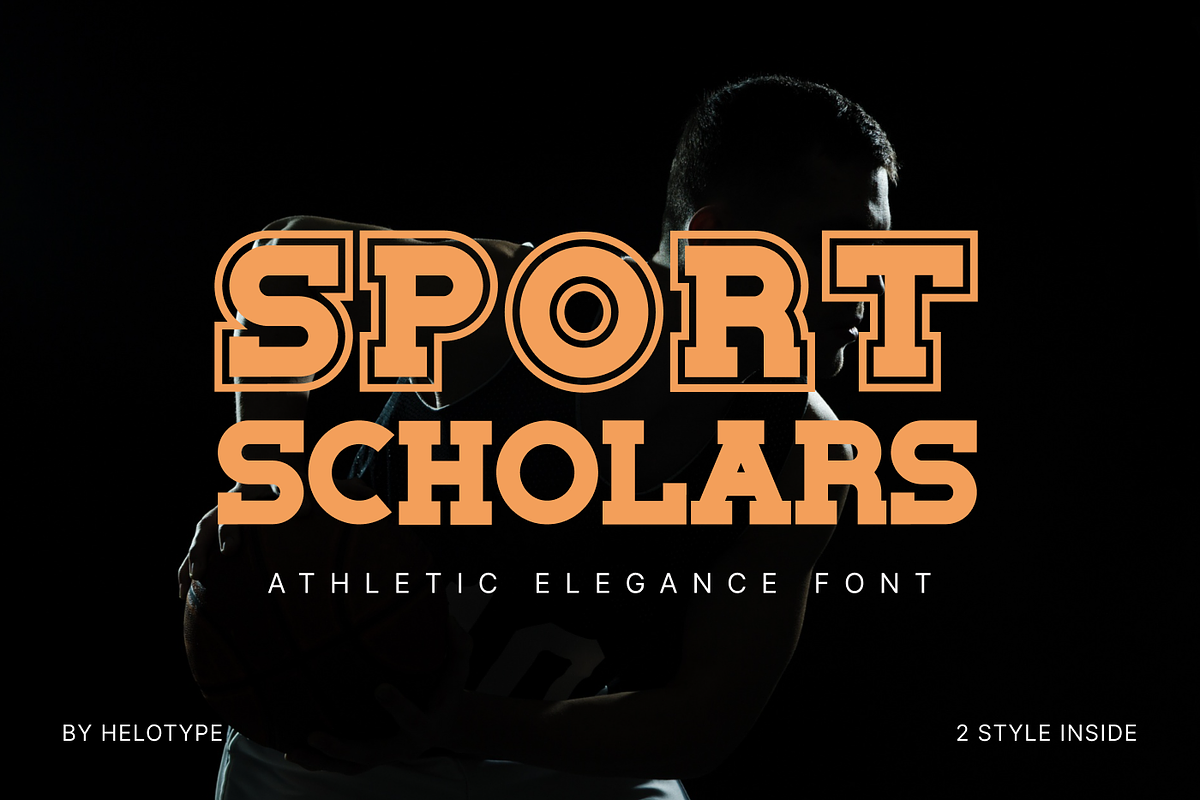
Sport Scholars - Athletic Font Free Download
Please note, to use this font for commercial purposes, you must purchase the full version. Sport Scholars is a bold and dynamic athletic font designed to bring the energy and spirit of sports to your designs. With its strong letterforms and sporty style, this font is perfect for logos, team uniforms, sports event posters, and branding projects. Whether you're designing for a sports team, a fitness brand, or a sports-related event, Sport Scholars adds a professional, competitive edge to your work. Test it out and enjoy free download access for personal use. Experience the power and athletic flair of Sport Scholars - Athletic Font Free Download before purchasing the commercial license. Add a bold, energetic touch to your designs with Sport Scholars.